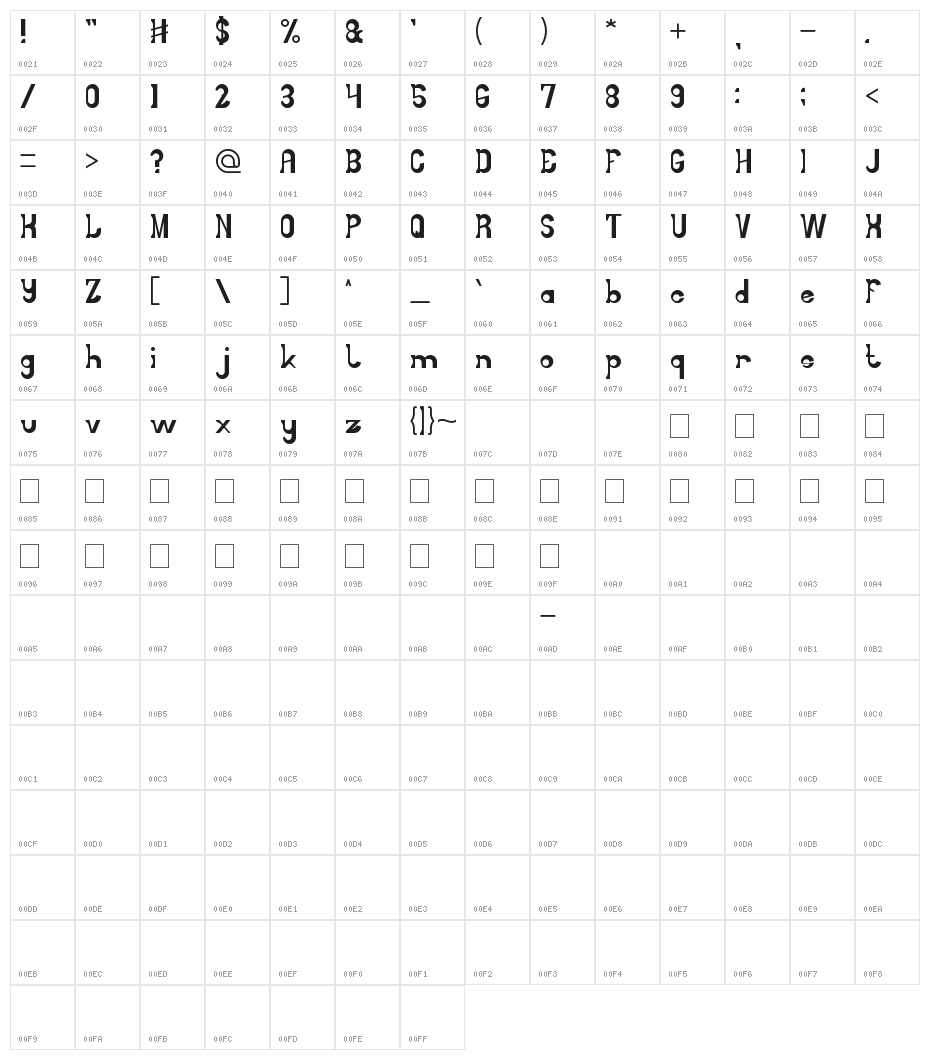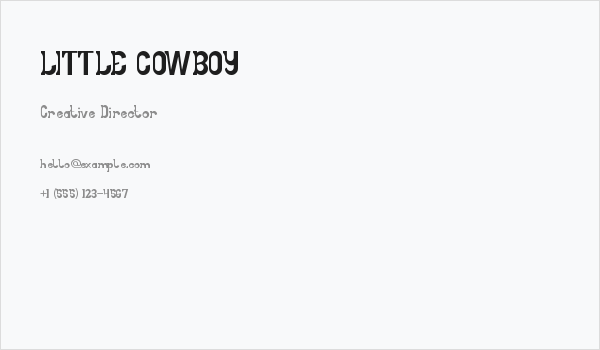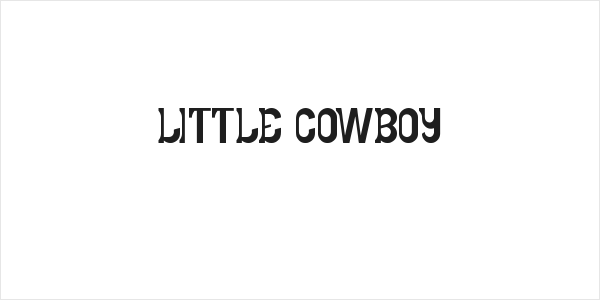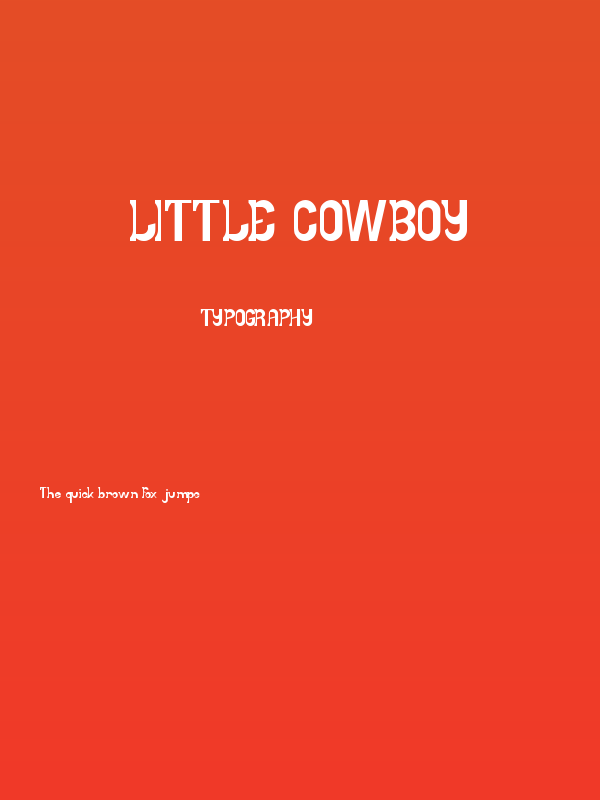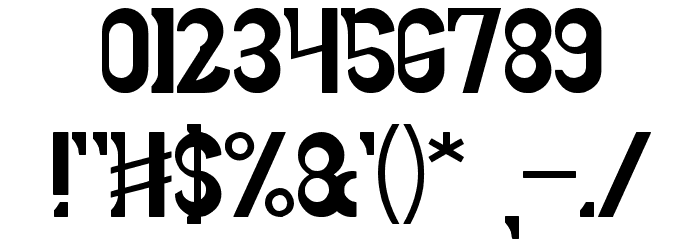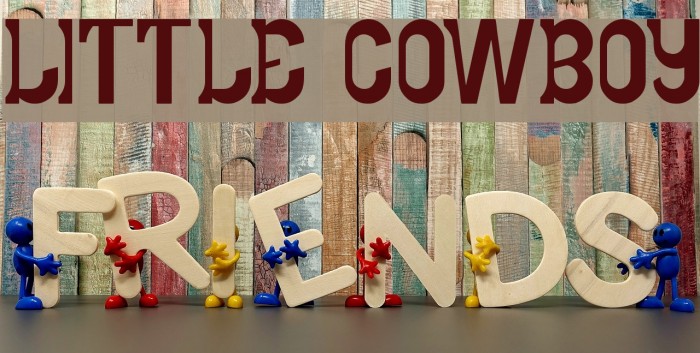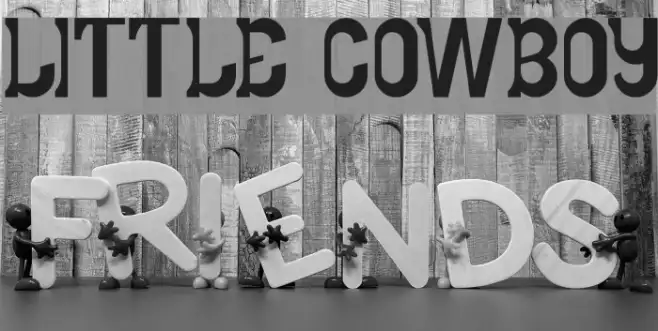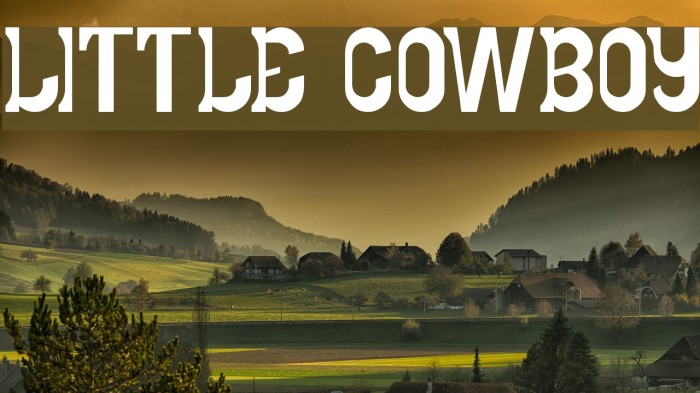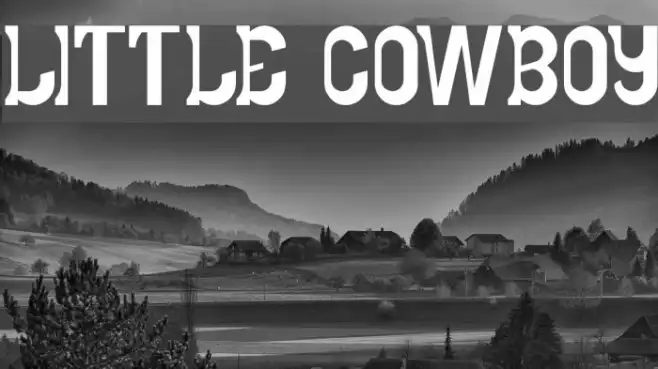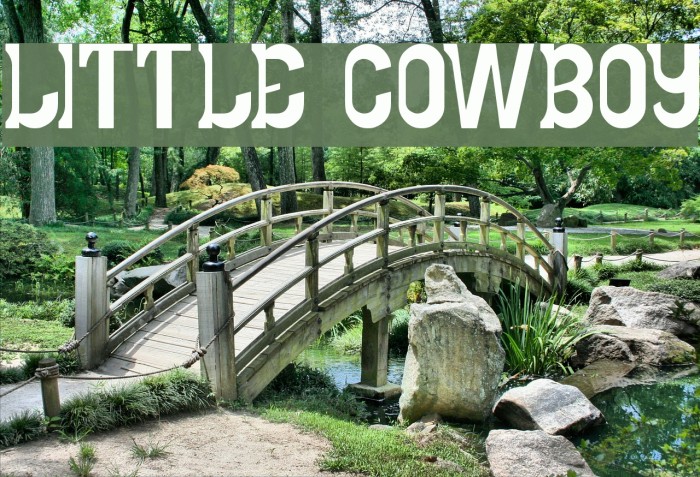
LITTLE COWBOY Font
LITTLE COWBOY Description
This font features a bold and playful design with a distinctive Western flair. The uppercase letters are characterized by thick, blocky forms with subtle curves and unique serifs that give them a rugged, cowboy-inspired appearance. The lowercase letters maintain a similar style, with some characters exhibiting playful loops and swashes, adding to the font's whimsical nature. The numerals are bold and consistent with the overall theme, ensuring readability while maintaining the decorative style. Special characters are creatively designed, fitting seamlessly with the rest of the font's aesthetic. This font is perfect for projects that require a touch of Western charm and boldness.
| Proposed Projects | Ideal for Western-themed posters, event invitations, logos, and branding materials that require a bold and playful touch. |